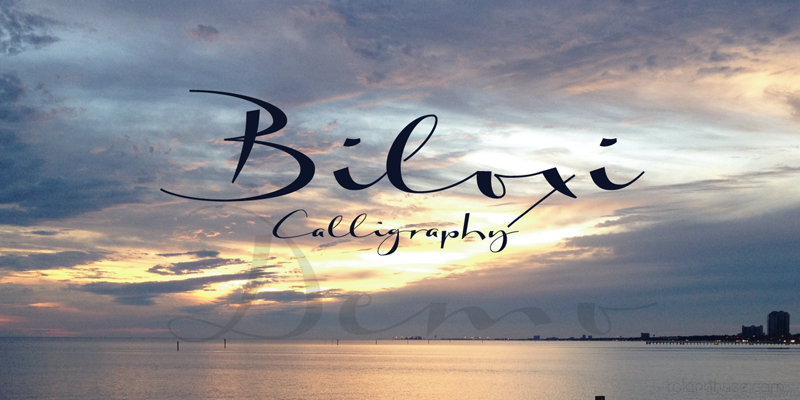
BILOXI CALLIGRAPHY is heavier version with calligraphic strokes of a handwritten font of mine called "Biloxi Script". This is a demo version. Free for personal use only. For commercial use please visit rolandhuse.com or contact@rolandhuse.com You MAY NOT sell this font or claim them as your own. You MAY NOT edit or rename this font. You MAY NOT redistribute this font. Thank you & I hope you like this font, Roland http://www.rolandhuse.com https://www.facebook.com/rolandhusedesign |